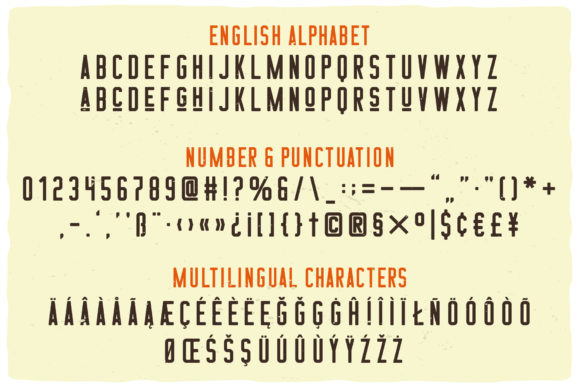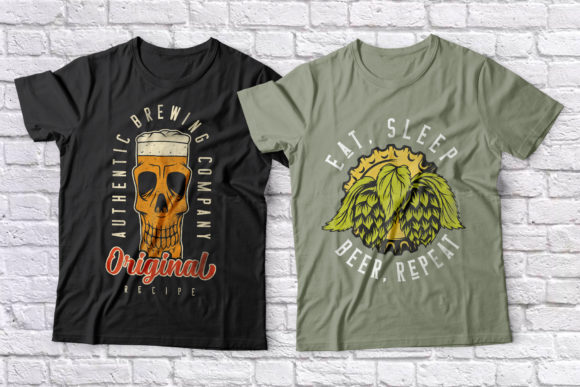
Beer Time Font
Beer Time is a bold and vintage styled display font. It is suitable for creating any branding, product packaging, invitation, quote, t-shirt, label, poster, logo that you wish to develop.